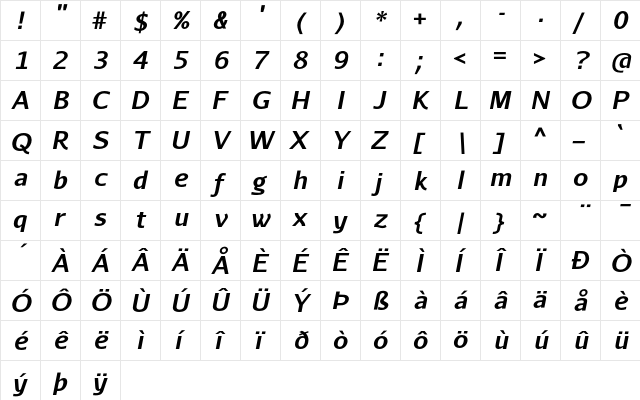
Aurulent Sans BoldItalic
Design Context for Aurulent Sans Typeface
Aurulent Sans takes a measured approach to typography — its balanced proportions and neutral character make it a reliable workhorse for both digital and print work. The slanted form adds forward momentum and visual energy. The heavy weight commands attention and anchors typographic hierarchies.
Pro Tip: Use Aurulent Sans for emphasis, pull quotes, and subheadings where its slanted energy can add rhythm to the layout.